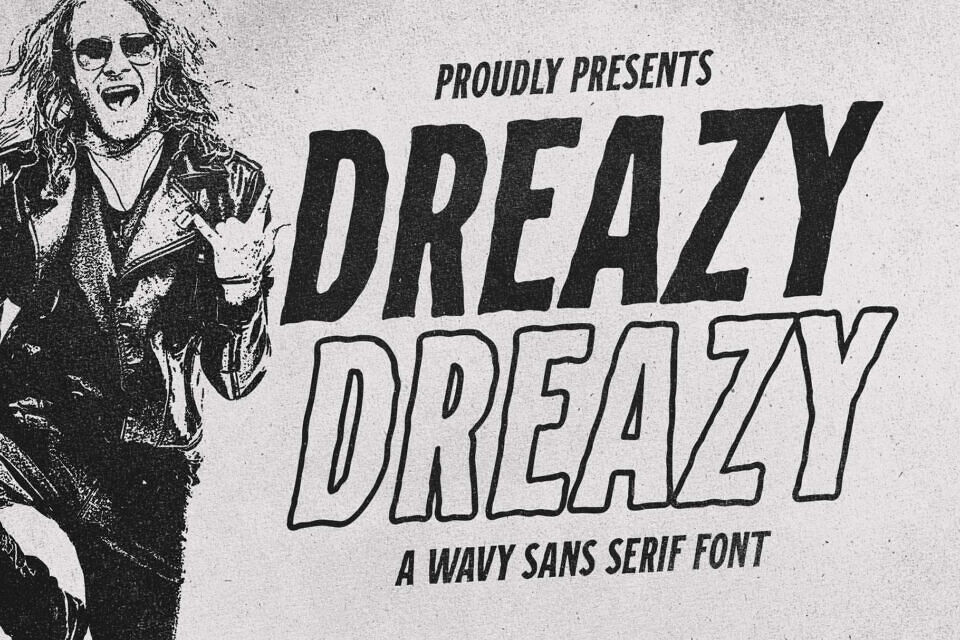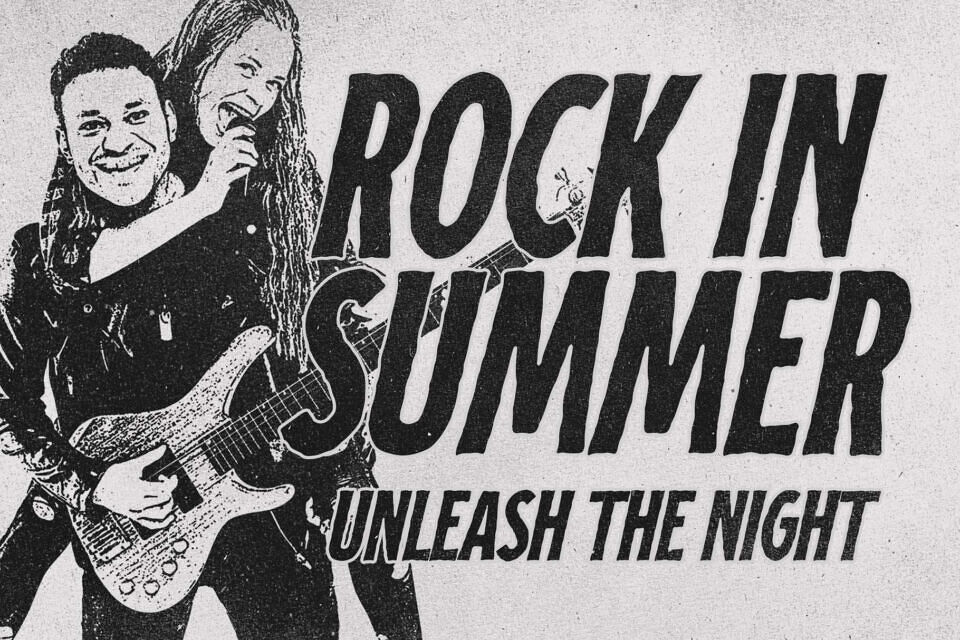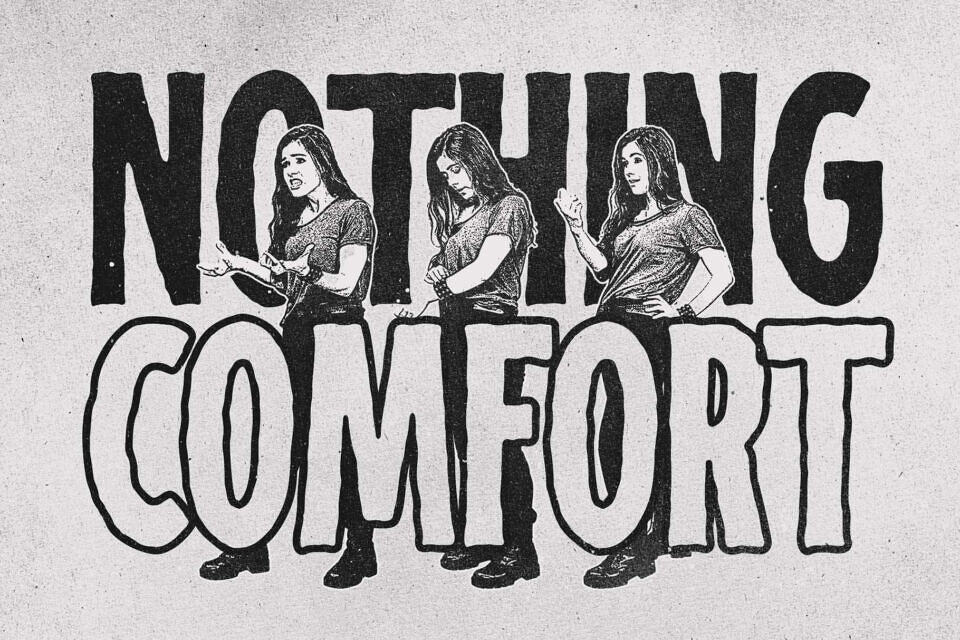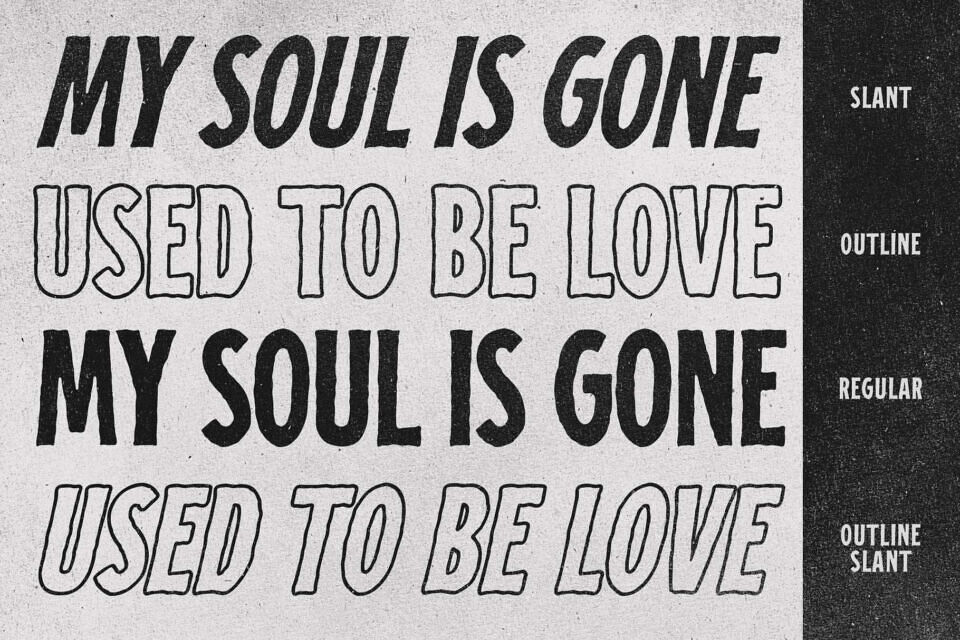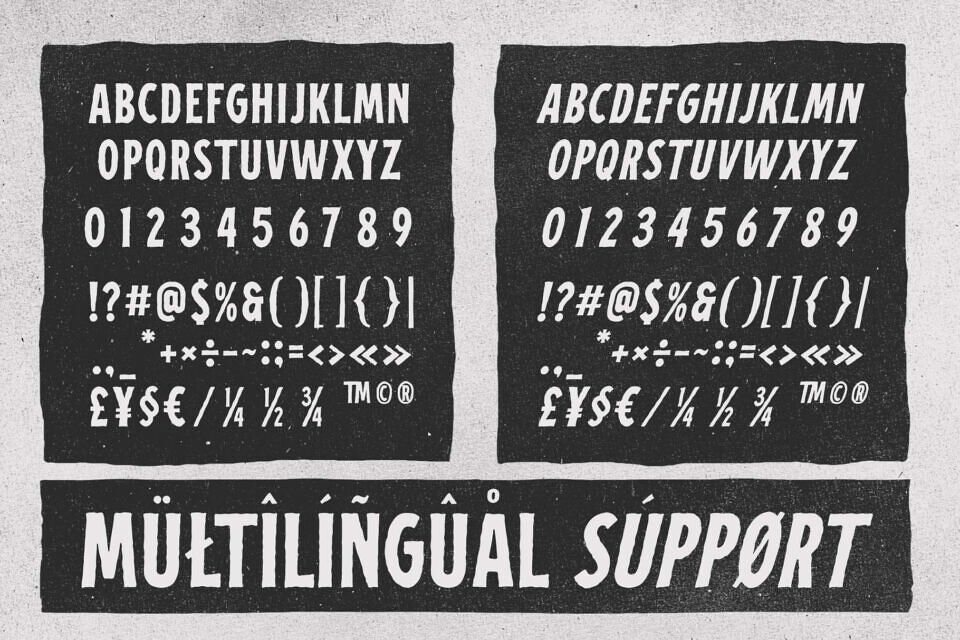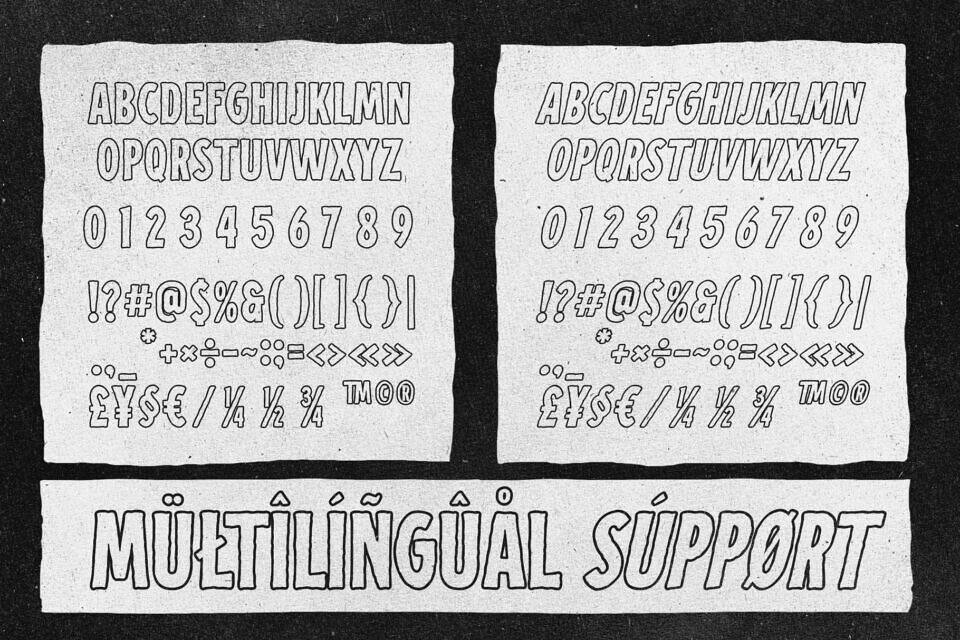
Dreazy Font Family
Dreazy, a wavy sans serif font, is made for any professional project branding, such as logotype, watermarks, poster, branding, promotions, product packaging, etc. Every letter has a rough style design. Dreazy font includes a full set of rought uppercase and lowercase letters, numerals and punctuation. This font has a rough style. Includes Regular, Outline, and Italics.